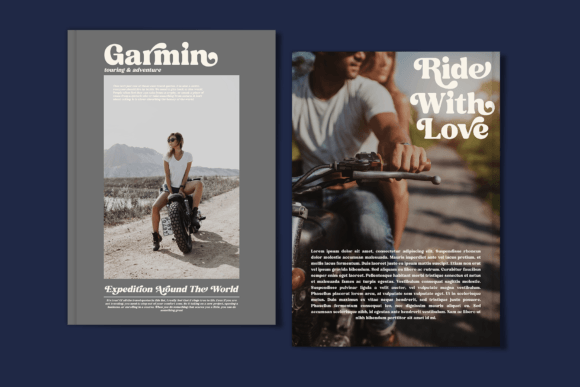
Fresh Mango Font
Fresh Mango is a Retro Serif Font. Create bold, gorgeous headlines and elegant designs with a vintage flair. Its contrasting lines and curved terminals give a sleek, elegant look to logos, holiday cards, wedding invitations, quotes, advertisements, and more.